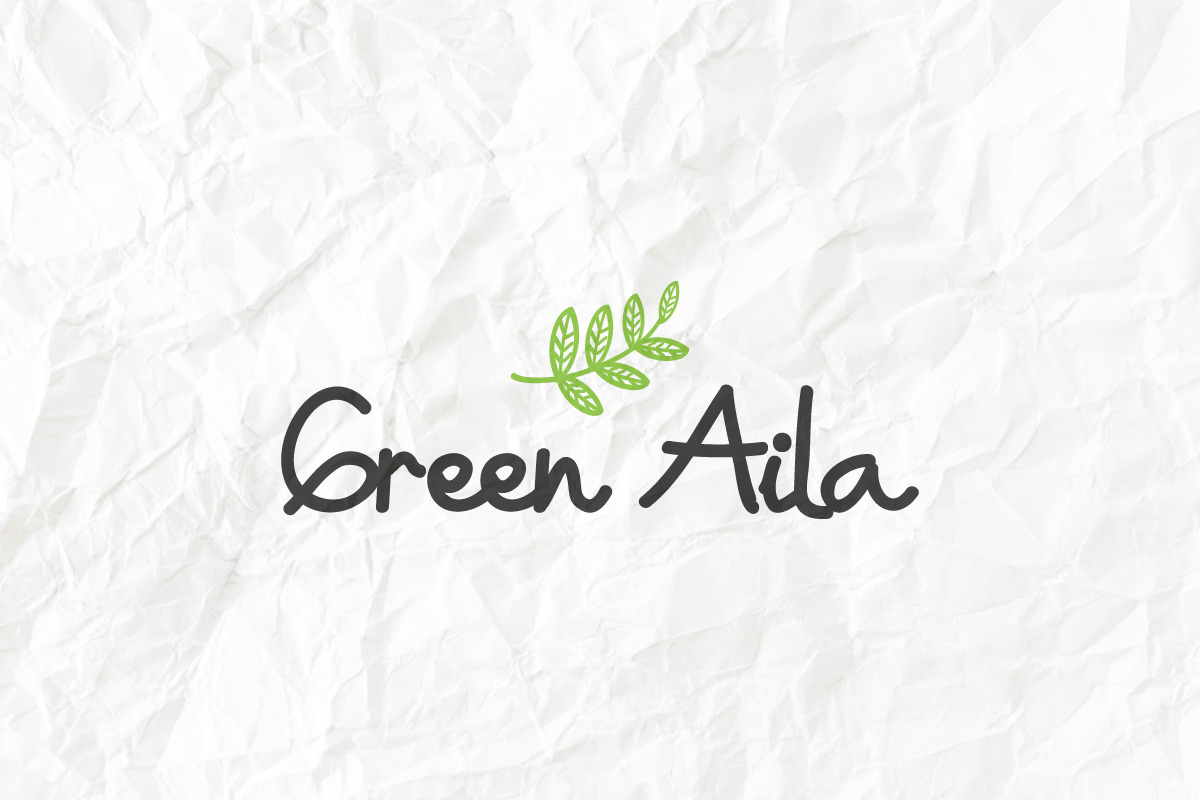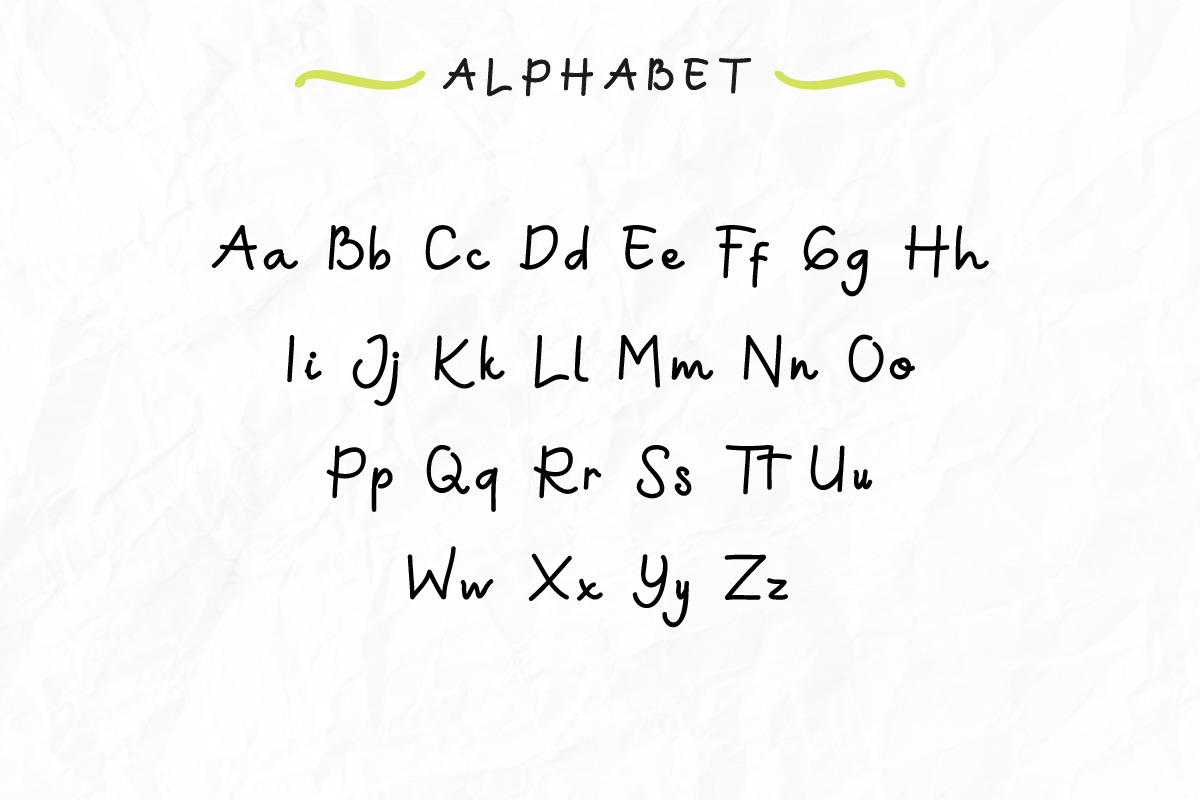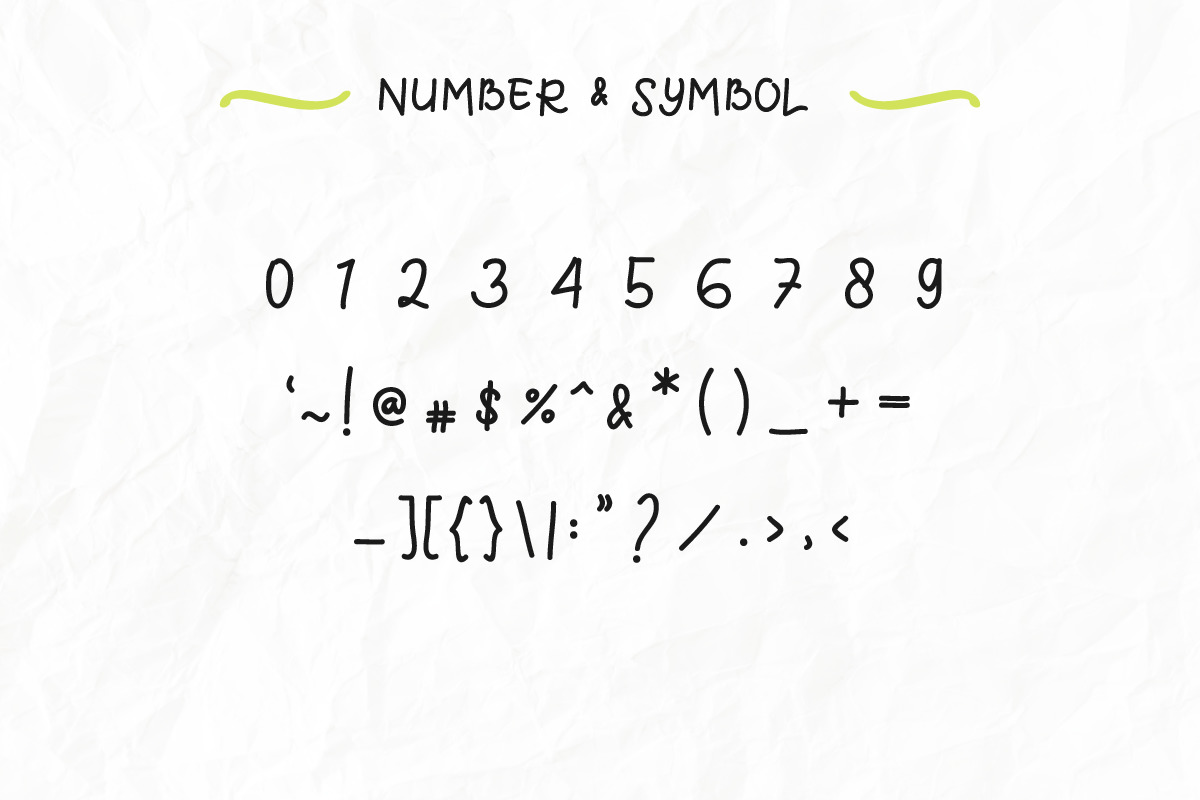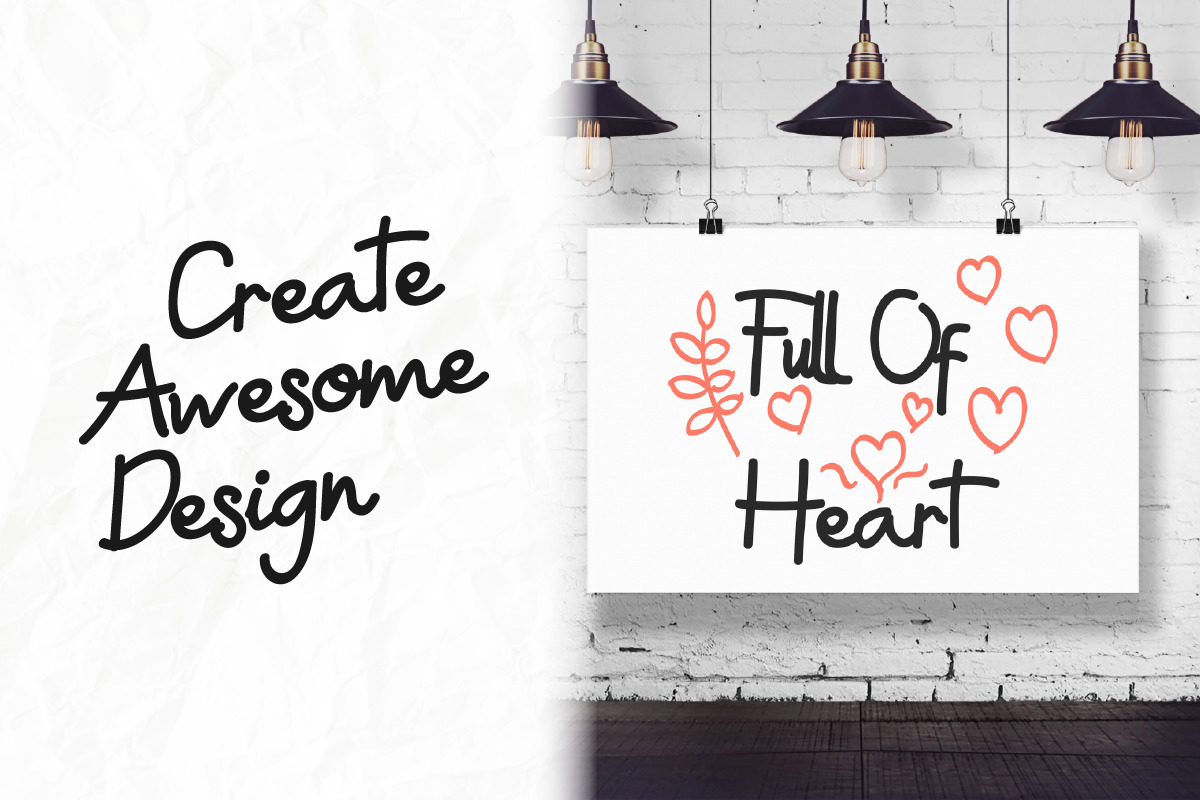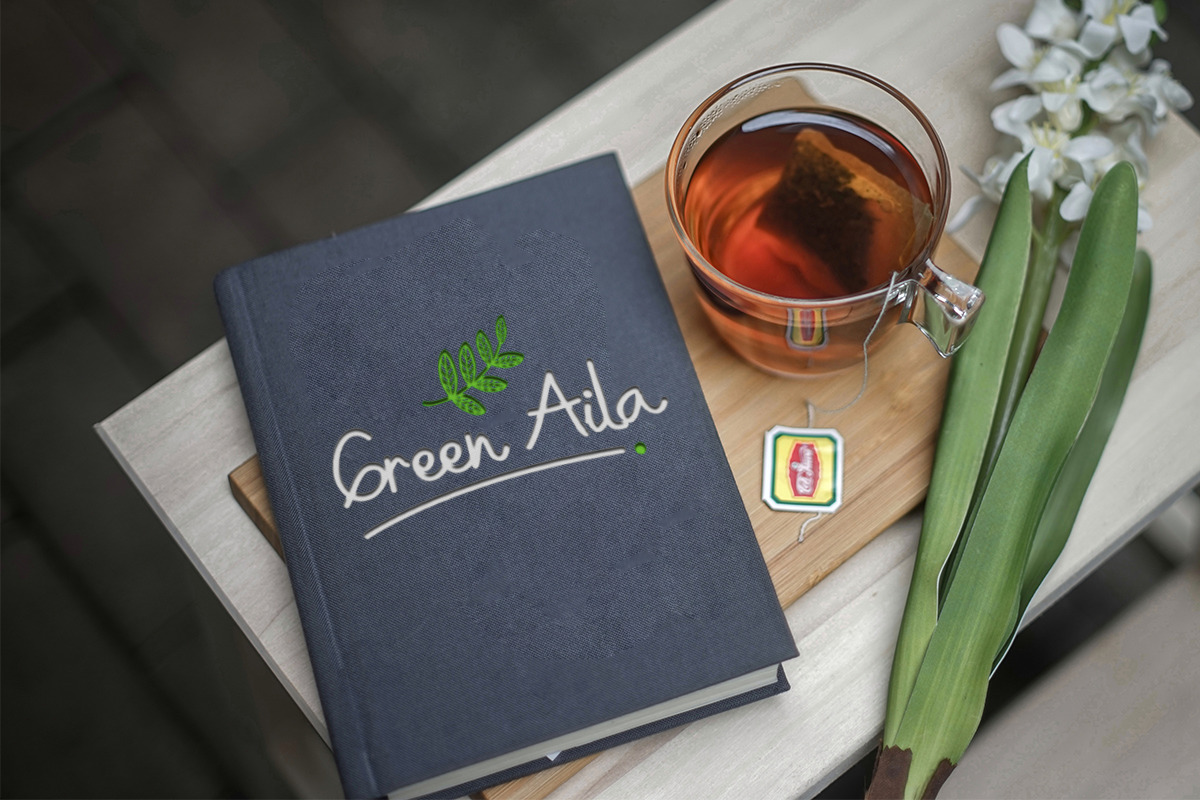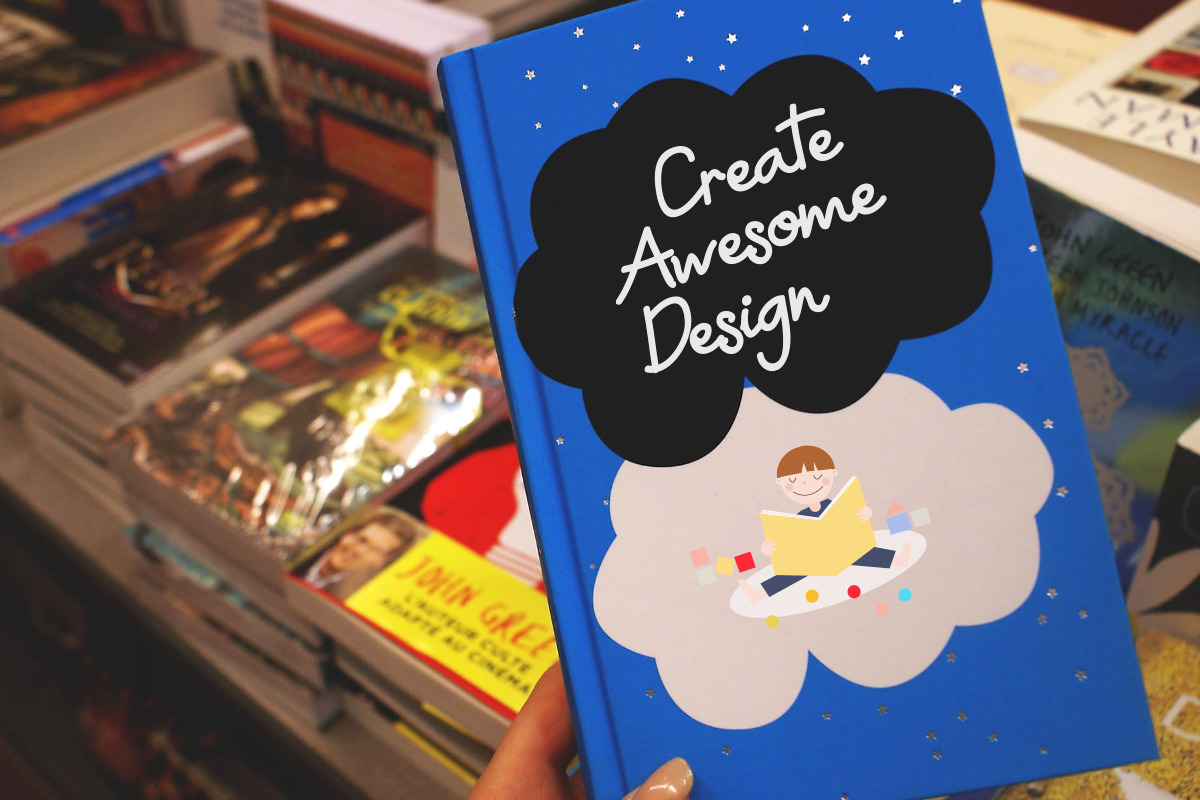
Green Aila Handwriting Font
Introducing Green Aila!
It’s a Cute Comic Handwriting. It’s a comic style handwriting font. Made for many cases : merchandising, cover, banner, tags, cards etc. It will be great for fun projects, kids theme, school, science project etc